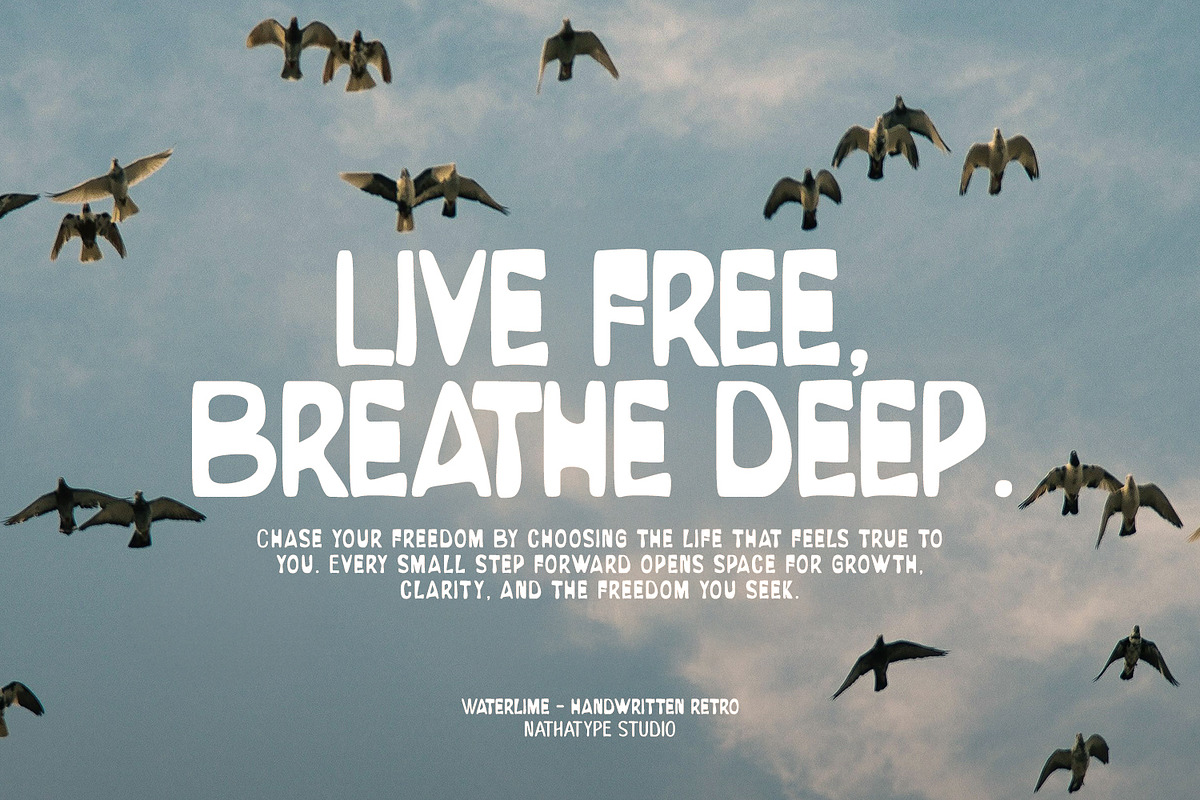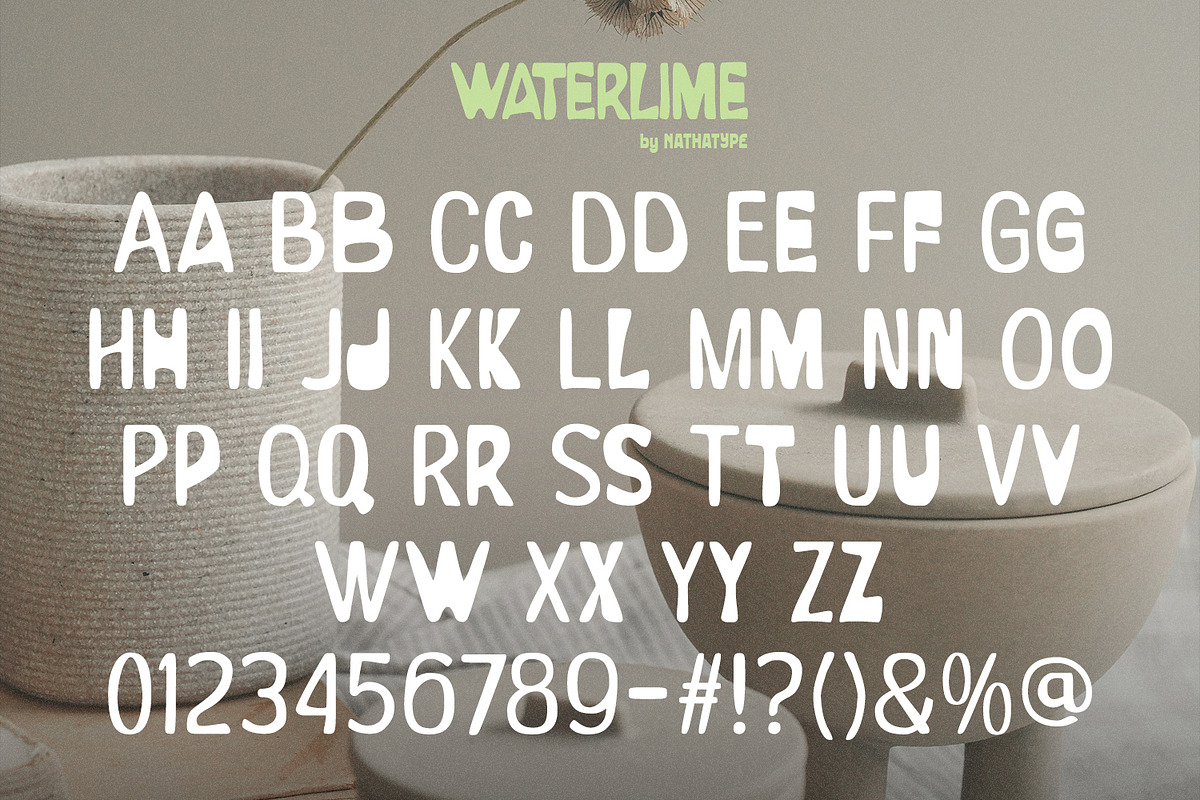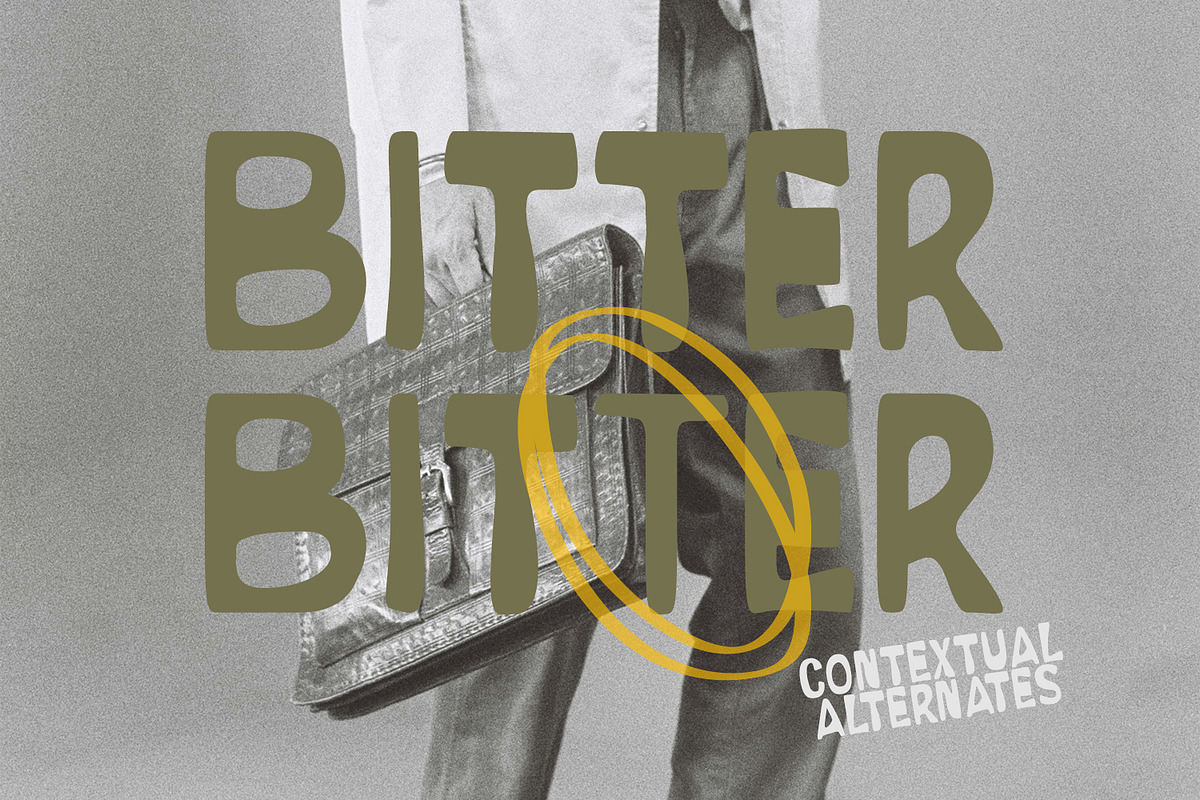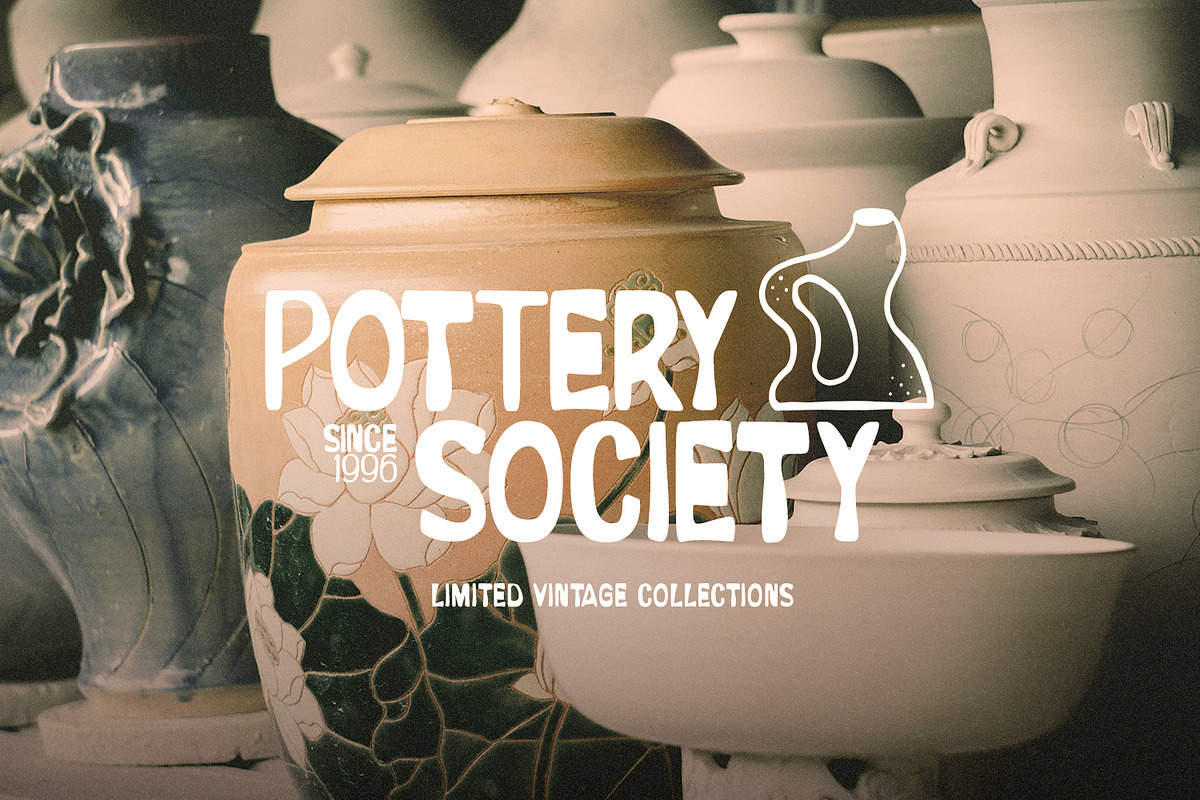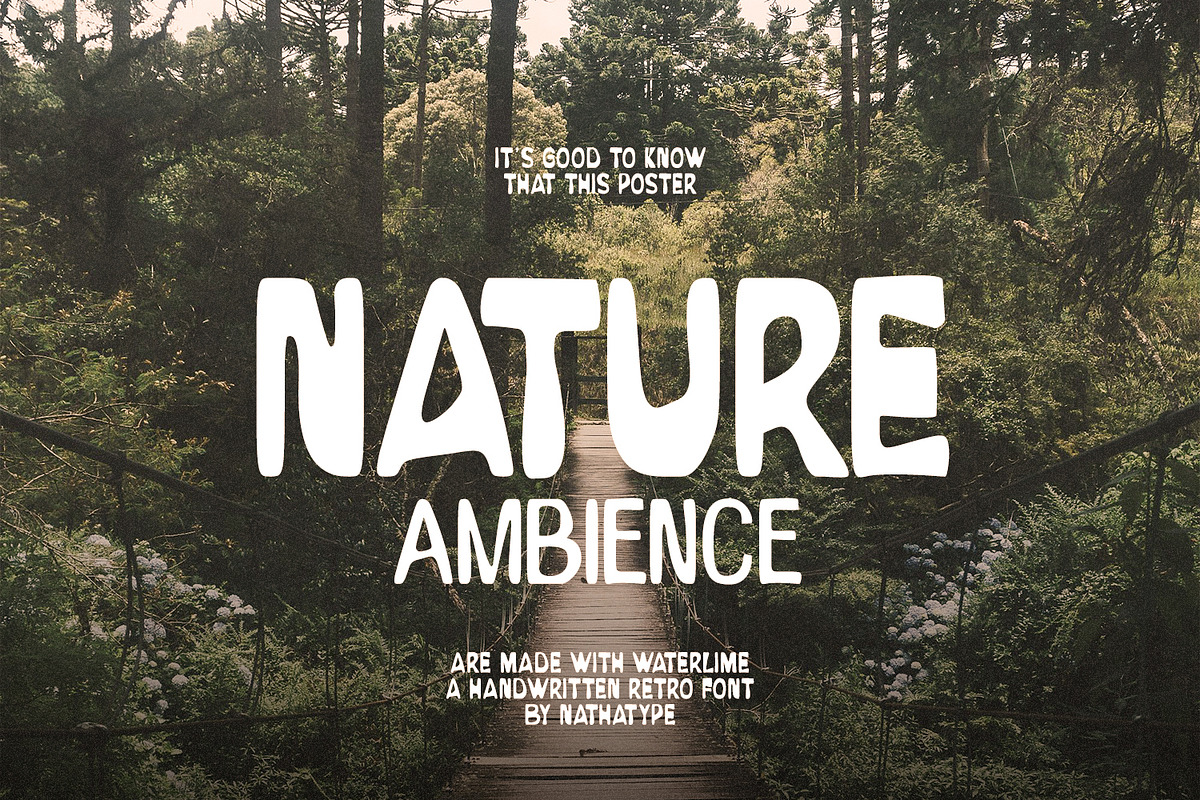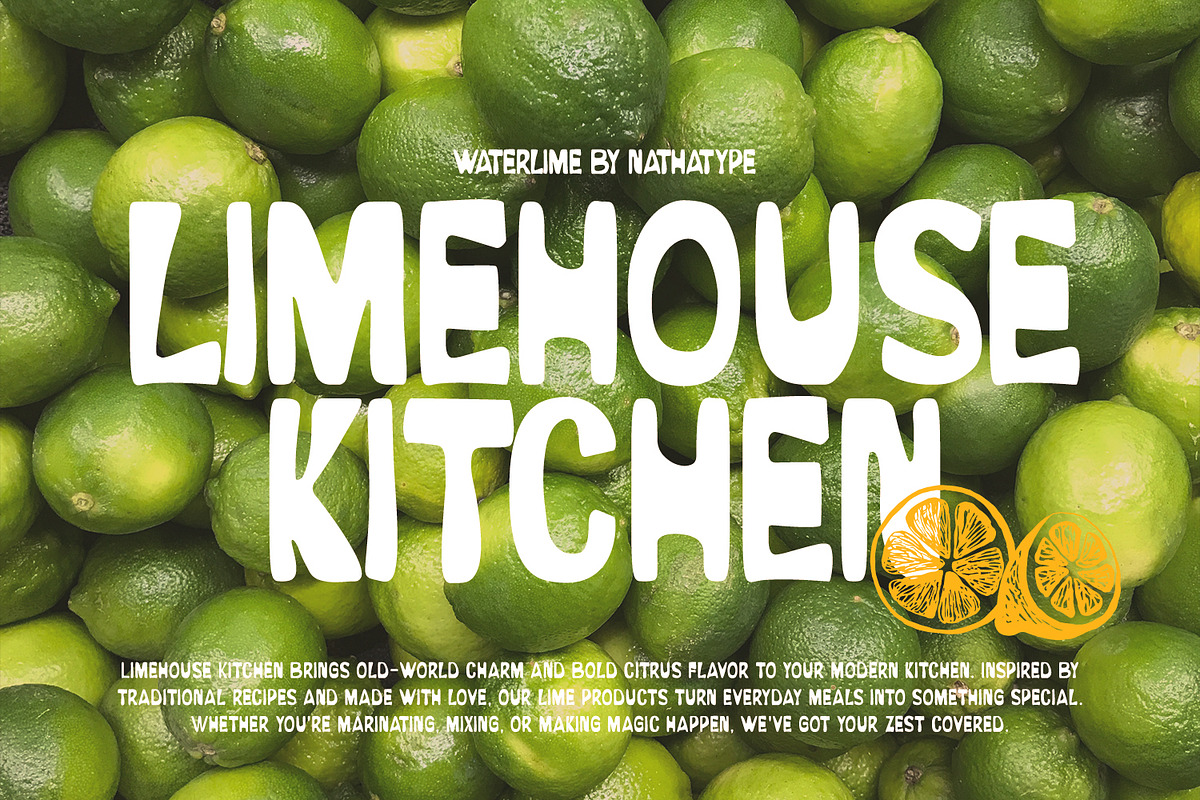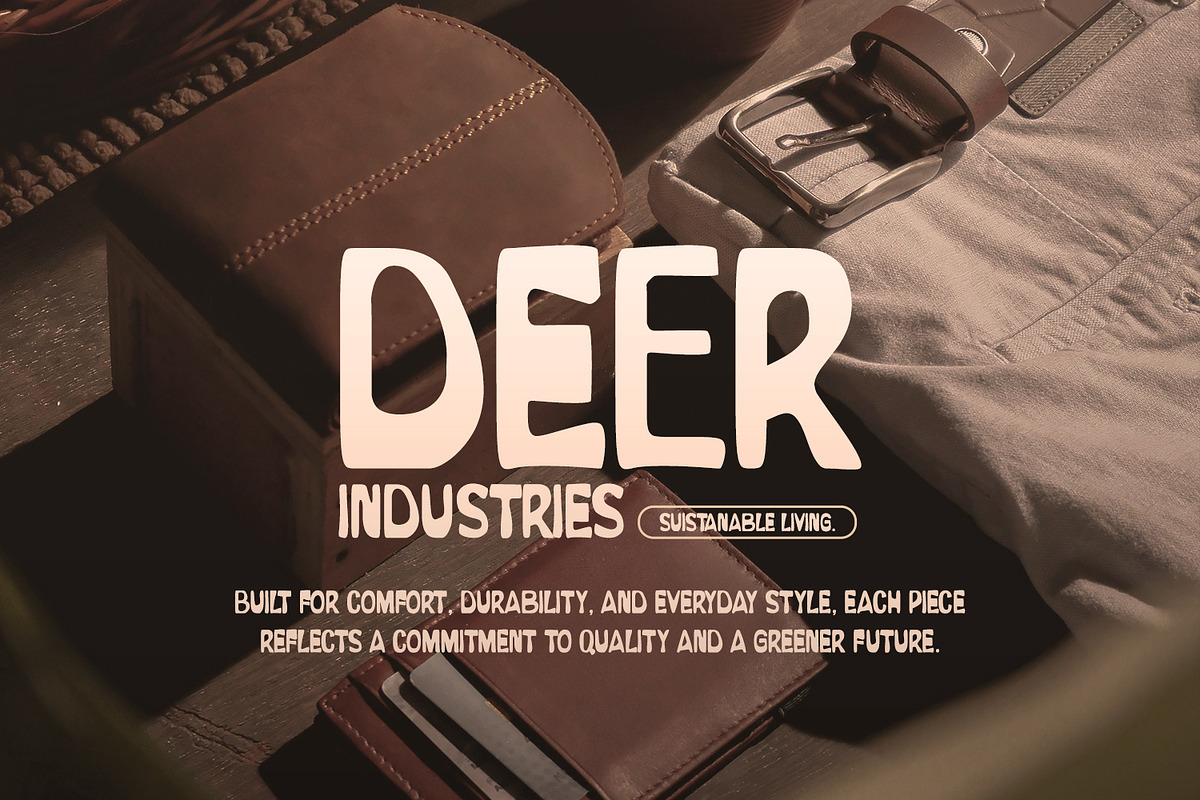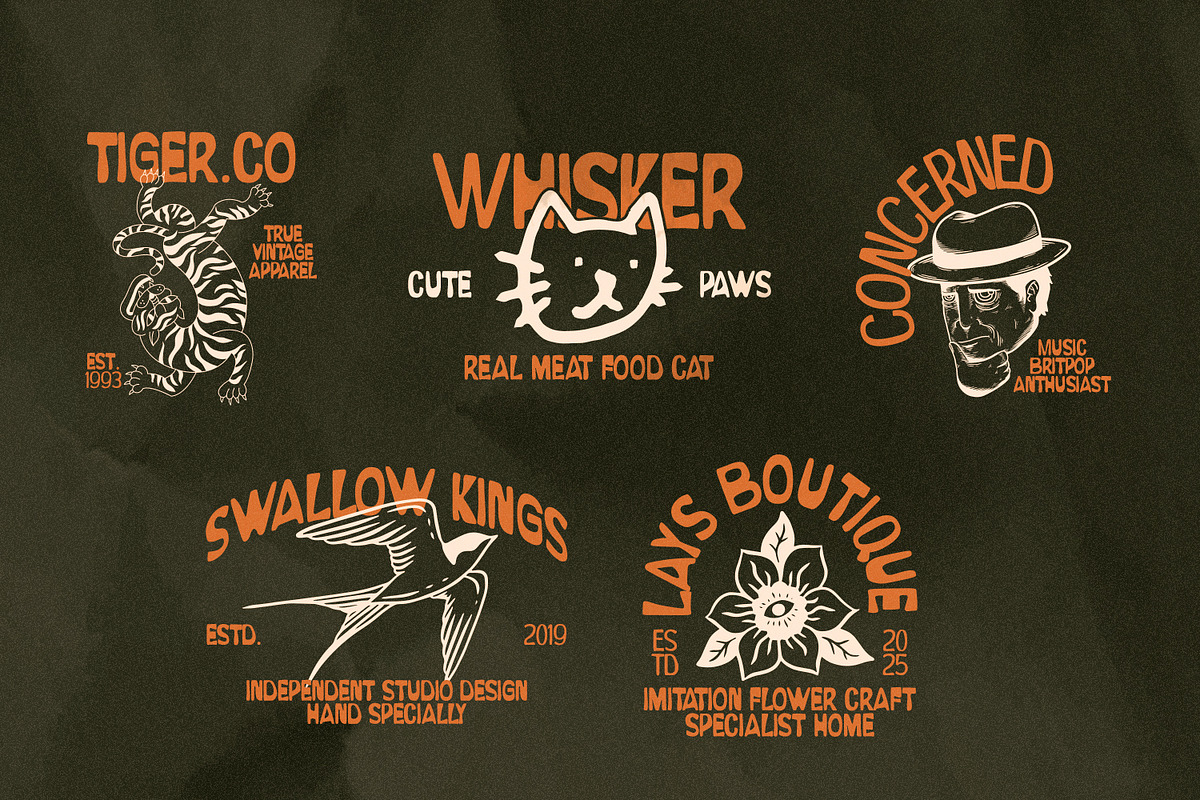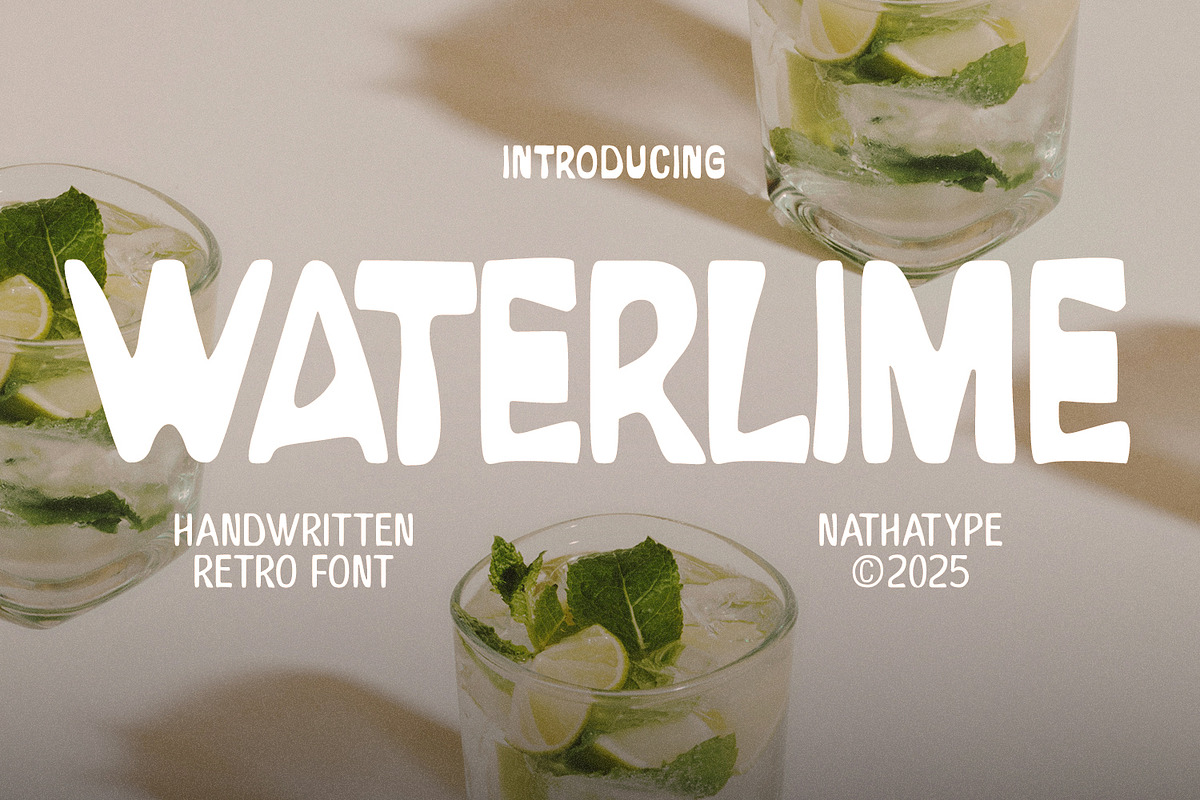
Watterlime
Watterlime is a handwritten font inspired by classic vintage lettering. The vintage style of Watterlime gives your designs a timeless, slightly retro feel, while the bold weight ensures strong visibility and impact. Each letter features subtle irregularities and uneven contours, mimicking the natural movement of handwriting and giving your text a genuine, human touch. This makes Watterlime perfect for projects that value originality, texture, and nostalgic charm. In addition, enjoy the features here.
- Contextual Alternates
Watterlime fits in logos, quotes, branding, posters, and many more designs. Find out more ways to use this font by taking a look at the font preview.